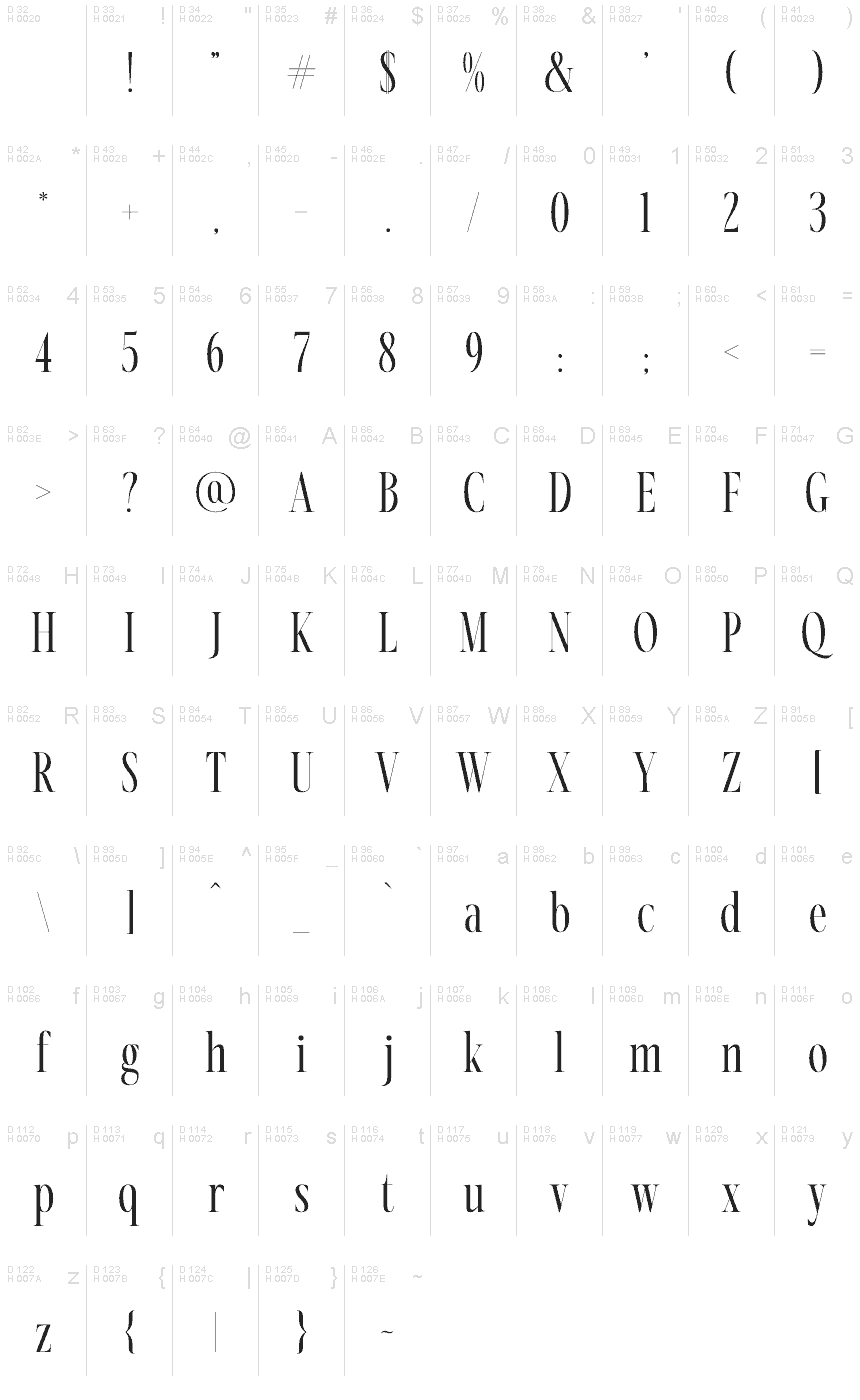
Nortine
Nortine font is a free condensed serif by Storytype Studio whose elite selection of features in inherently elegant, beautiful, and classic. Enjoy this sophisticated typeface whose curves and characteristic letter endings will contribute to the quality of your professional projects.
Deployed on magazine covers, posters, packaging designs, and advertisement graphics, Nortine will just simply elevate the design’s quality. The possibilities are endless with other uses including social media posts, banners and headers for websites or publications, typography artwork pieces or wall art printings.